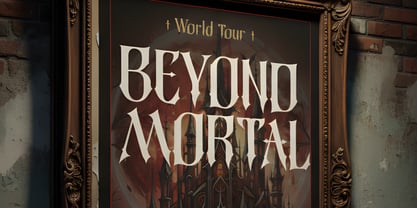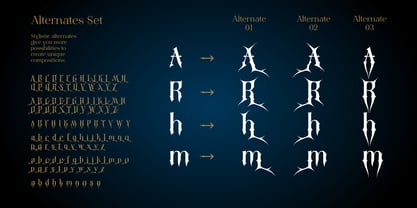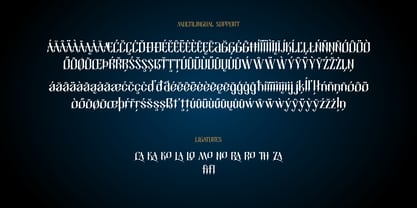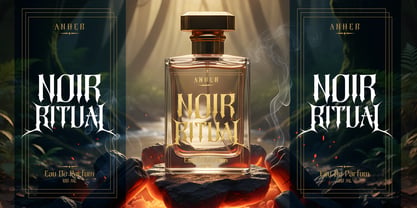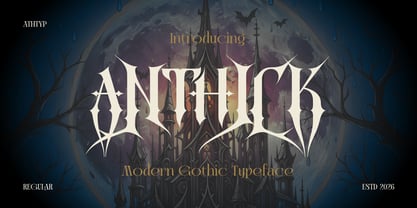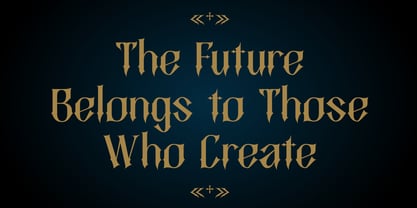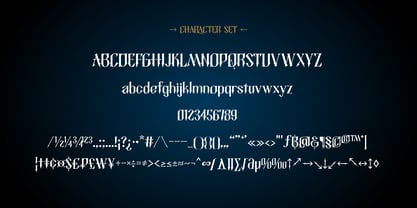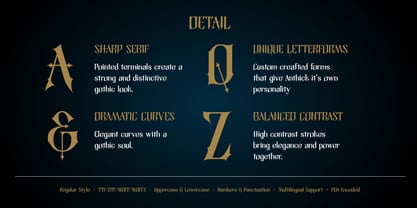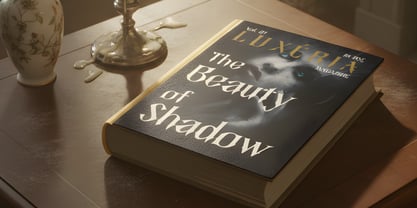
Anthick
by Authentype
The Anthick Font Family was designed by Ekayasa and published by Authentype. Anthick contains 1 styles. More about this family
Anthick Modern Gothic Typeface
Anthick Modern Gothic is a contemporary blackletter designed for maximum visual impact in headlines and branding. Unlike traditional fraktur styles that can feel cluttered, Anthick utilizes sharp, thorn-like terminals and high-contrast strokes to create a rhythmic, aggressive texture. Its structure borrows from historical gothic scripts but strips away excessive ornament in favor of geometric clarity. This font excels in streetwear branding, luxury packaging, and dark fantasy game interfaces.
The extensive ligature set (including ‘st’, ‘ct’, and ‘tt’) ensures that letter pairings flow with a professional, custom-lettered look. It bridges the gap between ancient manuscript aesthetics and brutalist design trends, making it a versatile tool for designers who need a voice that is both loud and sophisticated.
Sharp triangular terminals, high contrast strokes, elongated spiked descenders, and open-looped lowercase ‘g’ with a vertical stress.
Designers: Ekayasa Ekayasa
Foundry: Authentype